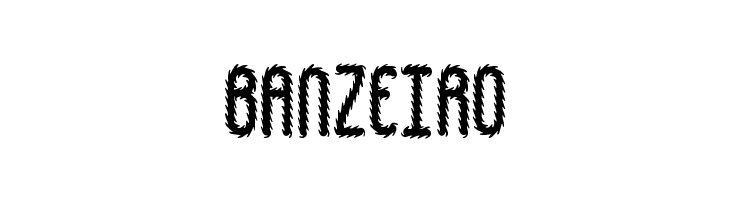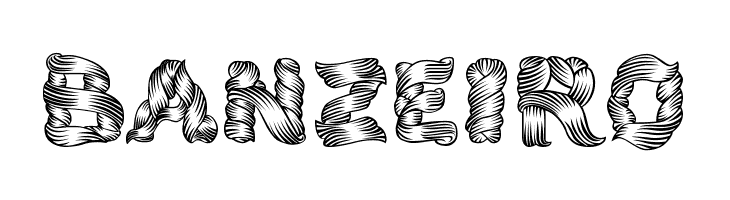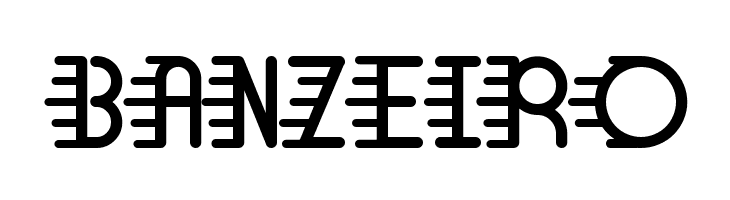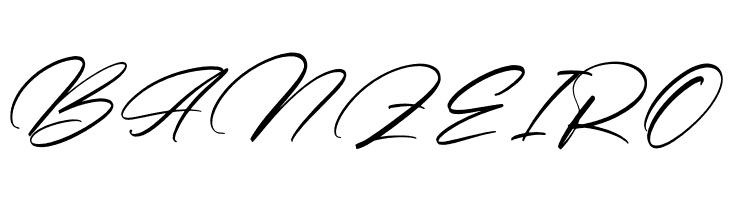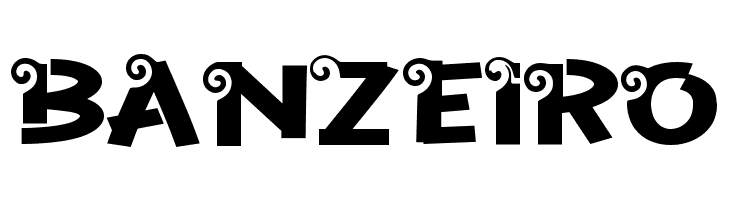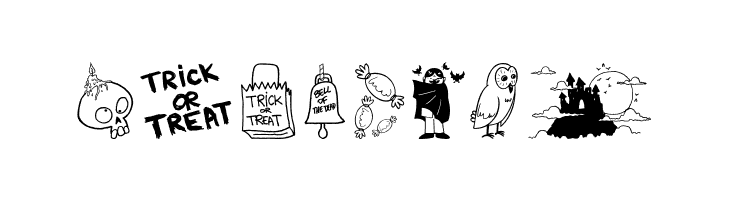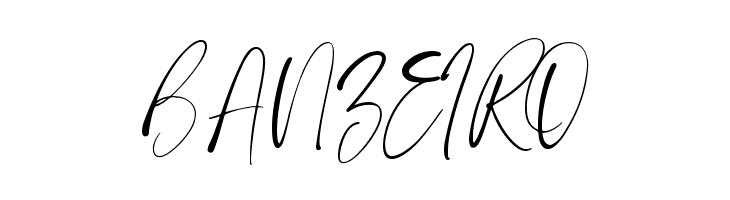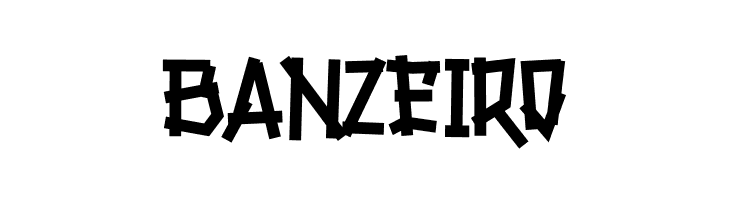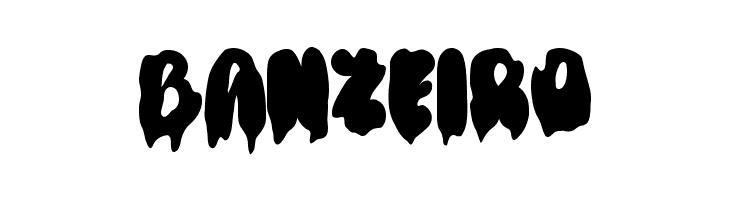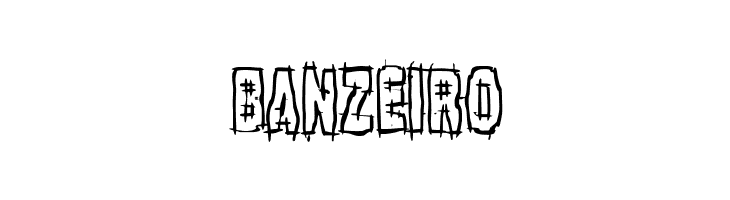
A bold, three-dimensional font with a vintage, geometric style and strong shadow effects.
A bold, angular font with a rugged, hand-drawn appearance.
A dynamic, cursive script font with medium contrast and elegant flow.
A rugged, distressed font with a chaotic, hand-drawn style.
A decorative font with cartoon faces representing each character.
A playful, decorative font with comb-like horizontal lines extending from each character.
A bold, italic font with dynamic horizontal lines for a sense of movement.
A decorative font with a textured, intertwined ribbon-like design.
A bold, jagged font with a hairy, chaotic style.
A bold, geometric font with an art deco influence.
A bold, playful font with rounded characters and whimsical curls.
A modern, playful sans-serif font with bold, rounded characters and a unique twist.
A dynamic, cursive script font with fluid, expressive strokes.
A whimsical, Halloween-themed font featuring playful hand-drawn illustrations.
A playful, spooky font with curled accents and dripping effects, perfect for Halloween themes.
Bold, melted display font with a spooky, drippy style.
A playful handwritten font with fluid, connected letterforms and a charming cursive flow.
A bold, slanted font with a dynamic and energetic style.
A dynamic and elegant script font with a fluid, handwritten style.
A playful, hand-drawn font with bold outlines and a whimsical style.
A playful, hand-drawn font with bold, rounded strokes and an informal style.
A casual, handwritten font with a playful and informal style.
A bold, distressed font with a grunge aesthetic and textured appearance.
A fluid and elegant script font with medium contrast and artistic flair.
A dynamic, expressive handwritten font with fluid, energetic strokes.